Elevate Your Designs: 15 Best Birthday Serif Font Choices for Every Occasion
Welcome back to the blog! I’m a firm believer that typography is the heartbeat of any great design. Whether I’m working on high-end branding or a simple DIY card, the right typeface sets the entire mood. Today, I’m sharing my personal “shortlist”: 15 essential Birthday Serif Font options. From elegant, luxury-inspired strokes to sweet, hand-drawn styles, these picks will help your invitations and logos truly stand out. Let’s find your next favorite!
1. Happy Birthday Serif Font
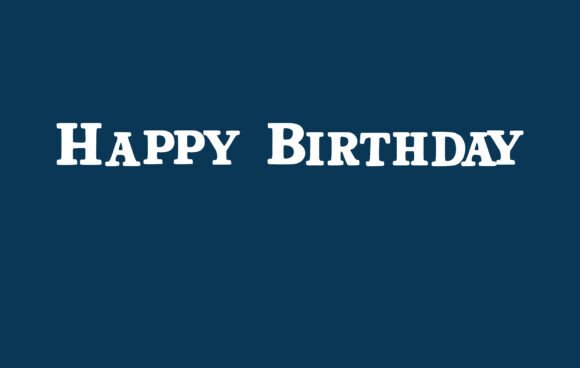
When I’m working on a project that needs to feel both celebratory and deeply personal, I often look for a Birthday Serif Font that breaks the mold of traditional, stiff typography. “Happy Birthday” is a gem because it brings an authentic, handwritten soul to a classic serif structure, adding just the right amount of romantic flair. As a designer, I love fonts that are “true favorites”—the kind you keep in your primary toolkit because they have the sheer potential to elevate a simple idea into something high-level and sophisticated. It’s rare to find a typeface that feels this soulful while remaining so expertly polished.
What really makes this Birthday Serif Font stand out in my daily workflow is its incredible legibility. Whether I’m using it for a bold magazine headline or setting a few lines of body text on a greeting card, it holds up beautifully. I’ve found it to be a perfect match for everything from branding and social media graphics to elegant wedding invitations. It’s versatile enough to be your go-to for any project that needs a touch of warmth and celebration, proving that you don’t have to sacrifice clarity to achieve a stunning, hand-crafted aesthetic.
2. Birthday Serif Font
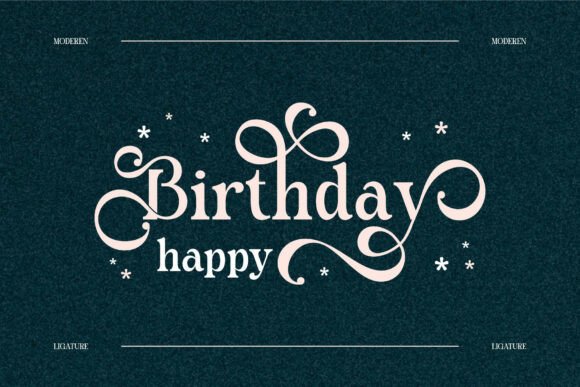
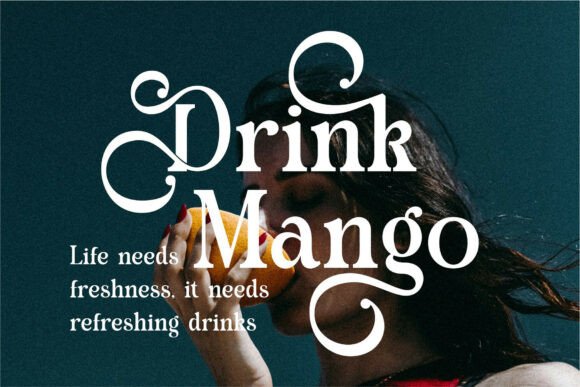
When I’m looking for a typeface that strikes the perfect balance between high-end fashion and classic celebration, I always find myself returning to this Birthday Serif Font. It’s an elegant serif that draws heavy inspiration from famous minimalist logos, giving it that “expensive” feel without being over-the-top. As a designer, I love how it brings a sense of quiet luxury to my layouts—it’s the kind of font that does the heavy lifting for you, whether you’re working on a sleek advertising brand or a sophisticated brochure.
What makes this Birthday Serif Font a staple in my personal toolkit is its sheer versatility across both digital and physical media. I’ve used it for everything from high-quality video overlays to intricate crafting projects and beauty design. It’s particularly effective for invitations and templates where you want an “architectural” and clean look that still feels inviting. If you’re aiming for a design that looks organized, professional, and timelessly elegant, this font is the perfect foundation to help your creative ideas truly shine.
3. Dolce Birthday Serif Font
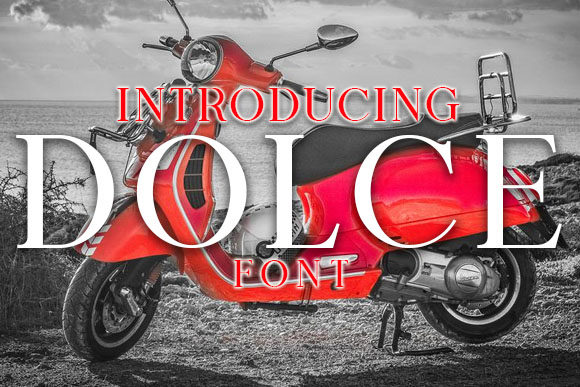
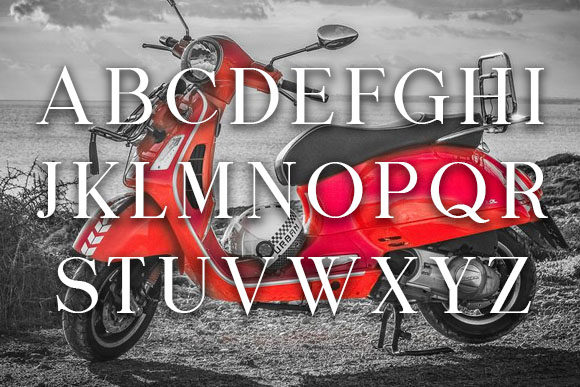
Sometimes, you just need a typeface that speaks for itself without being overly complicated. “Dolce” is an awesome serif that I’ve been keeping in my rotation lately because it honestly looks cool on just about any design I throw it at. As a designer, I appreciate when a Birthday Serif Font can balance traditional elegance with a modern, fresh vibe. It has that clean, structured look of a classic serif but with a playful personality that makes it feel current and energetic—perfect for those “main character” moments in your layouts.
I’ve found that Dolce really hits its stride when used for personal, celebratory pieces. If you’re looking for a reliable Birthday Serif Font to use on postcards or birthday invitations, this is definitely the one to grab. It brings a polished, professional finish to the page while still feeling festive and inviting. Whenever I use it, it adds a layer of sophistication that makes even a simple invite feel like a high-end keepsake. It’s a great reminder that the right font choice can do all the heavy lifting for your design’s mood.
4. Fork and Plate Birthday Serif Font
One of the most exciting parts of my design process is finding a pairing that just works without any extra effort, and that’s why I’m obsessed with this duo. “Fork and Plate” isn’t just a single typeface; it’s a brilliant combination of a serif and a sans serif that brings a creative, unique shape to any canvas. When I’m on the hunt for a Birthday Serif Font that offers a bit more character, I love how this one adds an instant impression of thoughtfulness and style. Its distinct silhouette makes it stand out from the typical fonts you see everywhere, giving your creations a bespoke, handcrafted feel.
As a designer, I’m always looking for versatility, and this Birthday Serif Font duo delivers exactly that. Whether I’m drafting elegant birthday invitations, writing personal letters, or even designing text overlays for YouTube content, it adapts beautifully to the mood. There is so much you can do with it—the serif brings the class, while the sans serif keeps things modern and readable. It’s the perfect toolkit for when you want your project to feel coordinated and professional, but with a playful, creative twist that keeps your audience engaged.
5. Simple Farmland Birthday Serif Font
In my studio, I’m always on the hunt for typefaces that feel grounded yet whimsical, and “Simple Farmland” is exactly that—a tall, elegant serif that brings a breath of fresh air to any layout. When I’m searching for a Birthday Serif Font that feels a bit more rustic and artisanal, this is my top pick. It has a beautiful verticality that makes it a perfect font for crafts, logos, and especially birthday invitations that need a “farmhouse chic” or cottagecore aesthetic. It’s a versatile workhorse that manages to look sophisticated without feeling stiff.
One of my favorite designer “hacks” with this Birthday Serif Font is how effortlessly it pairs with fluid script fonts; the contrast between its structured tall lines and a loose handwriting style is absolutely stunning. But the real hidden gem in this font family has to be the included doodles. They are an absolute dream for craft projects like custom stickers, vinyl decals, or Cricut designs. Whether you’re making a personalized banner or a bespoke invitation set, having those matching hand-drawn elements ensures your entire design feels cohesive and charmingly handcrafted.
6. Pulpy Orange Birthday Serif Font
When I want a design to feel fresh, vibrant, and undeniably contemporary, I reach for Pulpy Orange. This isn’t just another traditional typeface; it’s a modern serif that brings a crisp, energetic edge to everything from high-end branding and logos to bold banner designs. As a designer, I’ve found it to be an incredible Birthday Serif Font for those who want to step away from the vintage look and embrace a more “now” aesthetic. It works flawlessly on modern websites and posters, providing a sharp, professional silhouette that still feels full of life and character.
One of the technical reasons I love using this Birthday Serif Font in my client work is that it’s fully PUA encoded. For anyone who loves to get creative with details, this is a game-changer—it means you can access all those extra glyphs and stylish swashes with ease, regardless of the software you’re using. Whether I’m designing a minimalist birthday invitation or a complex social media campaign, those extra flourishes allow me to customize the text so it feels bespoke. It’s a versatile, user-friendly tool that ensures your typography looks as juicy and bold as the name suggests!
7. The Sunday Lovely Birthday Serif Font
In my design journey, I’ve found that the best typefaces are those that tell a story before you even read the words, and The Sunday Lovely does exactly that. It is a truly gorgeous serif that stands out because of its subtle, handwritten touch. When I’m on the hunt for a Birthday Serif Font that leans into a romantic, calligraphic aesthetic, this is the one I reach for. It brings a soft, sophisticated energy that is perfect for everything from elegant birthday cards and wedding invitations to delicate watermarks and high-end product packaging.
What I personally appreciate as a designer is how user-friendly this Birthday Serif Font is for those of us who love a bit of extra flourish. Because it is PUA encoded, you can unlock all those beautiful extra glyphs and sweeping swashes without any technical struggle. This flexibility allows me to customize a layout so it feels truly bespoke and “human.” Whether I’m designing a label for a boutique brand or a personal card for a friend, this font provides that graceful, hand-finished look that makes a design feel curated and special.
8. Gift Birthday Serif Font
When a project calls for that unmistakable “unwrapping a surprise” energy, I immediately reach for Gift. As a designer, I love how this bold and charming serif display typeface radiates pure festive joy. It isn’t just a static set of letters; it’s a Birthday Serif Font that brings a sturdy yet whimsical hand-drawn twist to a classic structure. I’ve found it to be a high-impact choice for holiday branding and birthday announcements where you need the text to pop against rich, textured backgrounds while maintaining a sense of warmth and cheer.
In my personal design experiments, I’ve seen this Birthday Serif Font truly shine on smaller details like gift tags and personalized stationery, as well as on high-visibility headers for digital gift guides. It strikes that rare, perfect balance between professional readability and celebratory flair. My favorite pro-tip for using the Gift typeface? Pair it with a delicate script font or some festive ribbon illustrations. This combination creates a complete, holiday-ready aesthetic that makes any promotional graphic or greeting card feel like a thoughtfully wrapped present.
9. Birthday Serif Font
In my experience as a designer, there are times when you don’t need a font to shout; you just need it to speak with perfect clarity and grace. That’s why I’m such a fan of “Birthday”—it is a beautifully minimal and neat typeface that brings a sense of polished order to any canvas. When I’m hunting for a Birthday Serif Font that is versatile enough to adapt to almost any creative vision, this one always makes the shortlist. It has a clean, understated elegance that allows your ideas to breathe, making them stand out through simplicity rather than clutter.
The real beauty of this Birthday Serif Font is how effortlessly it integrates into an incredibly large set of projects. Whether I’m mocking up a high-end editorial layout, a minimalist logo, or a sophisticated event invitation, adding this font to the mix instantly elevates the aesthetic. It’s a great reminder that sometimes the most effective way to make a design memorable is to use a font that is balanced, legible, and timelessly stylish. It’s a true “chameleon” in my toolkit that never fails to bring a professional finish to the table.
10. Happy Birthday Serif Font
When I want a project to feel approachable and lighthearted, I often reach for Happy Birthday. This isn’t your typical rigid typeface; it’s a sweet and friendly Birthday Serif Font that brings a breath of fresh air to my design board. What truly sets it apart for me is its natural and unique outlined style—it has this “hand-finished” quality that makes it incredibly fitting for a huge variety of creative layouts. As a designer, I’m always looking for that one element that adds personality without overwhelming the composition, and this font hits that sweet spot perfectly.
In my personal blog work and client commissions, I’ve found that this Birthday Serif Font looks absolutely stunning on everything from delicate wedding invitations and thank-you cards to bold quotes and logos. Its versatility is its superpower; whether I’m mocking up a business card or a festive greeting card, the outlined aesthetic adds a layer of visual interest that keeps the eye engaged. It’s a wonderful tool for anyone looking to combine the structure of a serif with a warm, inviting vibe that feels genuinely human and celebratory.
11. Happy Every Day Serif Font
Every now and then, I stumble upon a typeface that just stops me in my tracks because of its character, and Happy Every Day is exactly that. It’s a peculiarly attractive serif that manages to feel both modern and incredibly friendly at the same time. As a designer, I’m always hunting for a Birthday Serif Font that offers something a little different, and the unique letterforms here provide that exact “wow” factor. Whether I’m working on a fresh logo or a detailed birthday card, this font brings a playful yet polished energy that makes even the simplest crafty ideas feel special.
One of the best things about using this Birthday Serif Font in my workflow is that it’s PUA encoded. For those of us who love to play with typography, this is a total win—it means you can access all the extra glyphs and swashes effortlessly, regardless of your design software. This flexibility allows me to add those custom, hand-finished touches that truly elevate a project. From personalized stationery to bold branding, it’s a versatile tool that ensures your work looks unique, professional, and full of life.
12. Half Birthday Serif Font
When I’m looking for that perfect balance between “refined” and “totally relaxed,” I find myself reaching for this casual, hand-written gem. Unlike traditional, stiff typefaces, this Birthday Serif Font features charming serifs throughout each letter, giving it a playful yet structured personality. As a designer, I love fonts that don’t take themselves too seriously but still maintain a professional edge—it’s exactly what you need when you want your layout to feel approachable and authentic rather than computer-generated.
The real magic happens when you pair it with its sister font, ZP Half Baked. In my own projects, I’ve seen how this combination can turn a simple creative idea into a total eye-catcher. Whether you are designing a quirky invitation or a social media graphic, this Birthday Serif Font provides that organic, “sketched-in-a-studio” vibe that is so popular right now. It’s a fantastic choice for anyone looking to add a bit of hand-crafted soul to their digital toolkit while keeping the classic readability of a serif.
13. Shiny Shine Birthday Serif Font
When a project calls for a touch of whimsy and lightness, I find that Shiny Shine is an absolute delight to work with. As a designer, I’m often drawn to its playful personality; it features these wonderfully thin and tall lines that give it a “cute” yet sophisticated silhouette. If you are searching for a Birthday Serif Font that feels breezy and youthful rather than heavy or traditional, this is the one I’d recommend keeping in your stash. It’s perfect for those moments when you want your typography to feel as celebratory and light as a bunch of balloons.
In my personal creative sessions, I’ve found that this Birthday Serif Font is incredibly versatile for children-themed designs, books, and art prints. It has a charming clarity that makes it a top choice for birthday invitations and greeting cards, but it’s also sharp enough to hold its own on clothing or a modern logo. Whether you’re setting an inspirational quote or designing a boutique brand, Shiny Shine adds a layer of “joyful elegance” that instantly brightens up the page.
14. Training Courses Birthday Serif Font
When I’m looking for a typeface that tells a story, “Training Courses” is exactly the kind of find that gets me excited. As a designer, I love how this playful serif boasts a rare blend of whimsical uniqueness and clean elegance. If you’re hunting for a Birthday Serif Font that feels different from the rest, this one brings a fresh authenticity and a subtle Eastern European accent to every glyph. It’s more than just a typeface; it’s an experience that ensures your communication has a smooth, cute, and sweet touch, whether you’re working on a logo for a hot new brand or a heartfelt birthday greeting card.
In my own studio work, I’ve found this Birthday Serif Font to be incredibly versatile for adding a bit of old-world charm to product packaging and labels. It has this wonderful ability to bring a vintage flair to book covers and magazines, yet it feels perfectly at home on modern t-shirt designs or sweater logotypes. Whether you are creating a festive poster or a simple quote design, it transforms your project into a class of its own. It truly is a typographical adventure, and I highly recommend it for any creative project where you want to capture that perfect balance of professional branding and celebratory warmth.
15. Pinky Charm Birthday Serif Font
When I need a design to feel both adorable and sophisticated, I often find myself reaching for Pinky Charm. As a designer, I’m particularly fond of its tall and thin characters, which give it a unique “cute-chic” silhouette that stands out on a crowded page. If you are on the lookout for a Birthday Serif Font that brings a sense of playful elegance to your toolkit, this is a fantastic choice. It has that rare ability to feel youthful and fun without losing the structured grace that only a serif can provide.
In my own creative projects, I’ve found this Birthday Serif Font to be incredibly versatile for everything from Valentine’s cards and inspirational quotes to children-themed posters and book covers. It’s a total dream for birthday invitations because its slender lines look stunning in both vibrant colors and soft pastels. Whether you’re designing a social media graphic or a physical print, Pinky Charm adds a layer of “charming personality” that makes your work feel instantly more thoughtful and professional.
Conclusion
Choosing a Birthday Serif Font is about finding a voice that resonates with the joy of the occasion. Whether you need the bold energy of “Gift” or the minimalist grace of “Birthday,” these 15 picks are designed to turn simple layouts into memorable keepsakes. I’d love to know which one caught your eye—drop a comment and tell me which font you’re planning to use for your next big project. Happy designing!